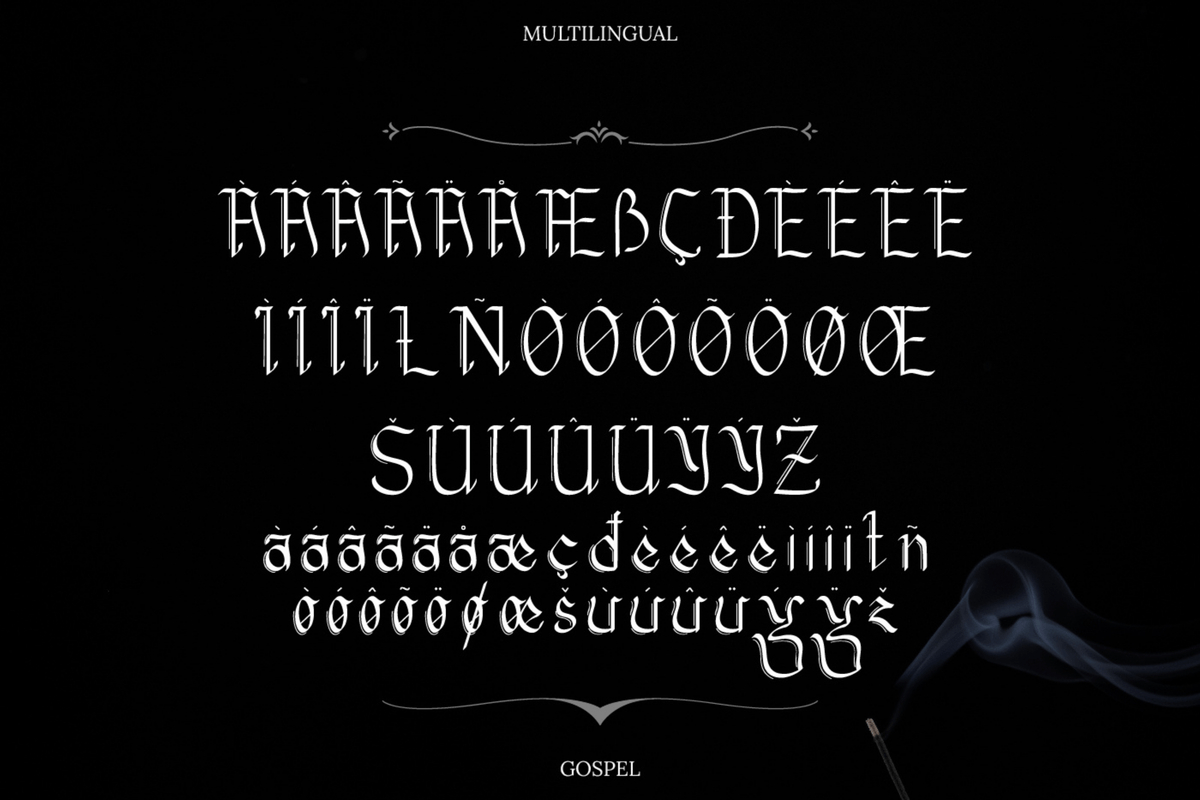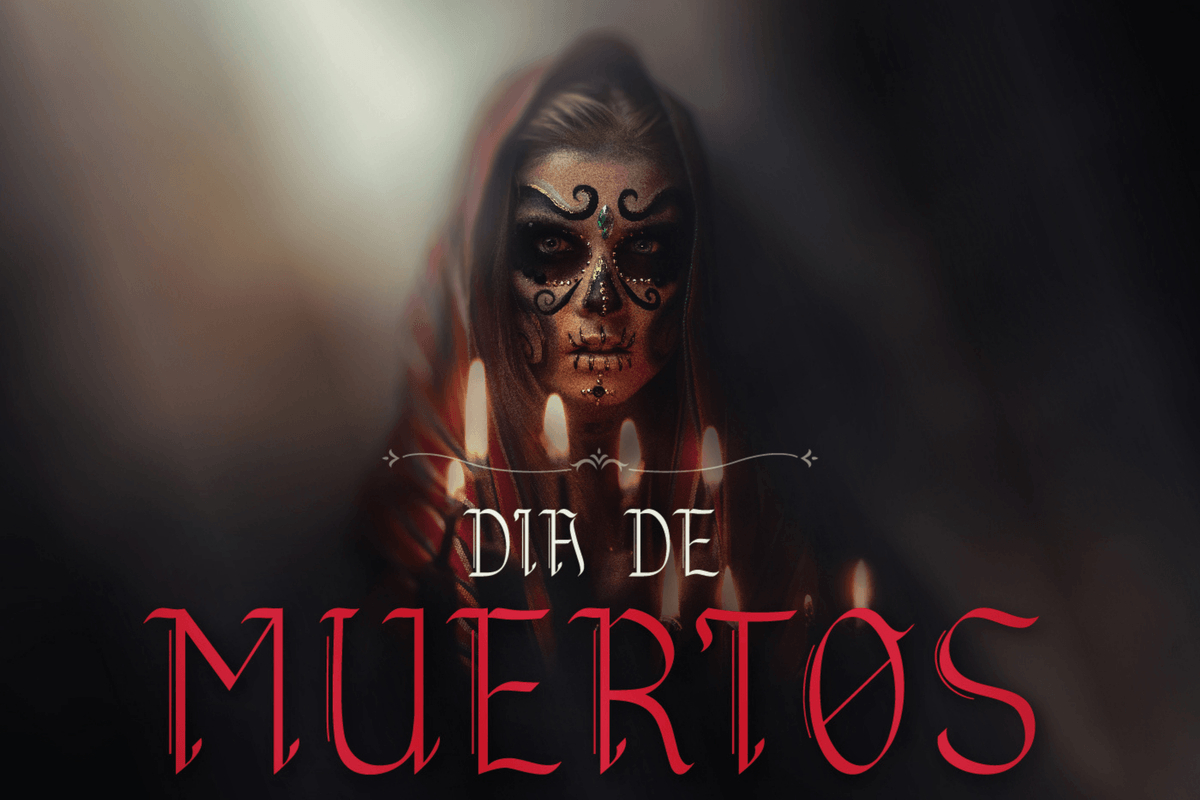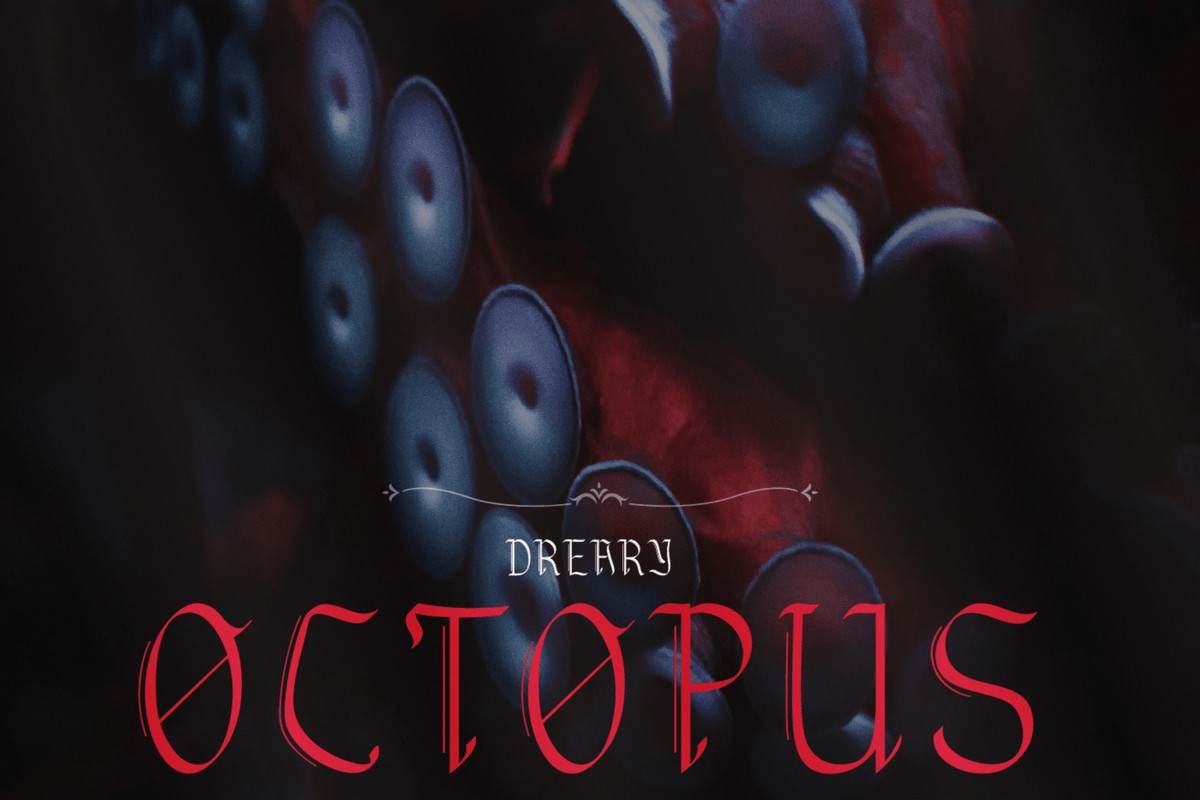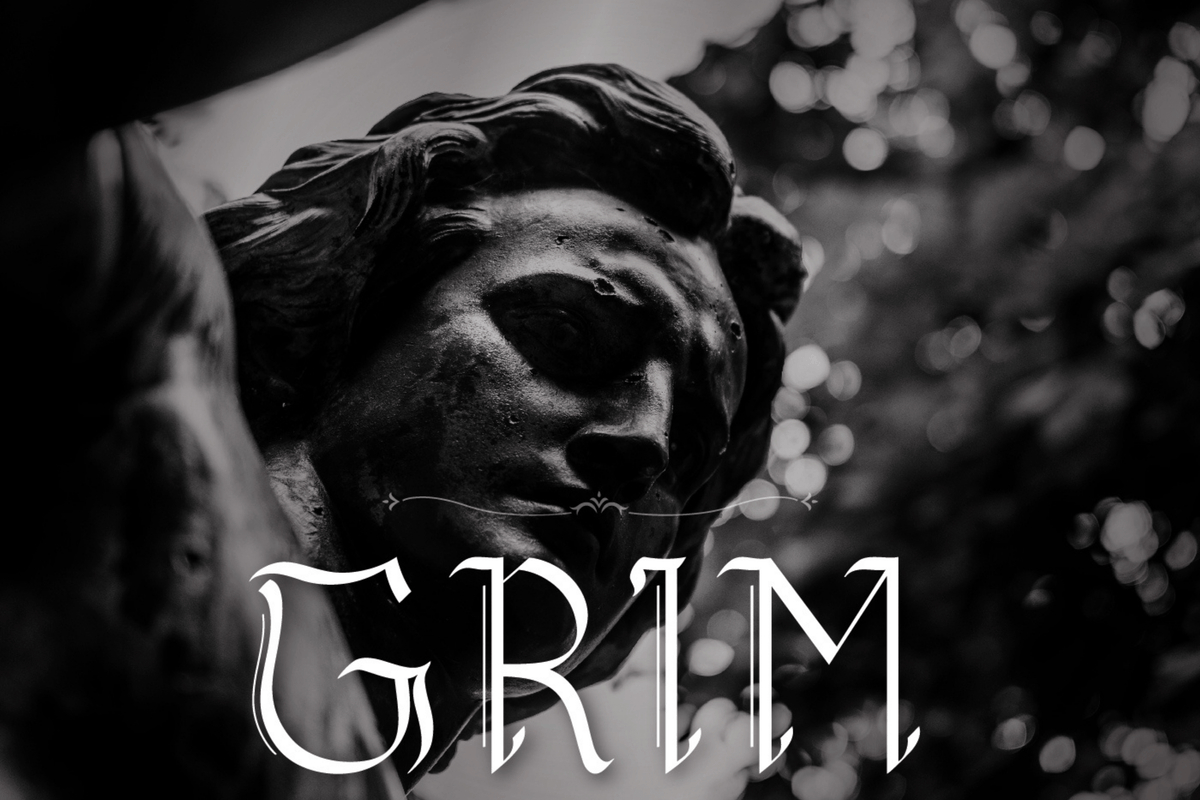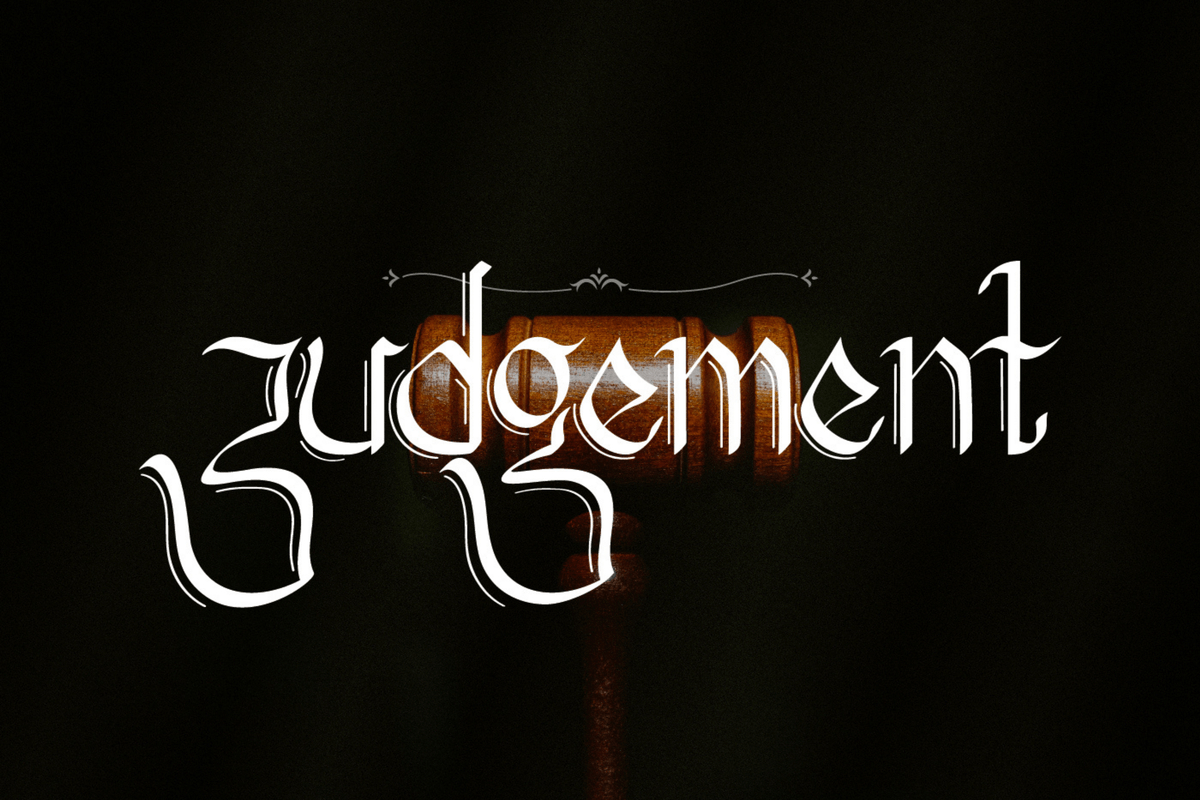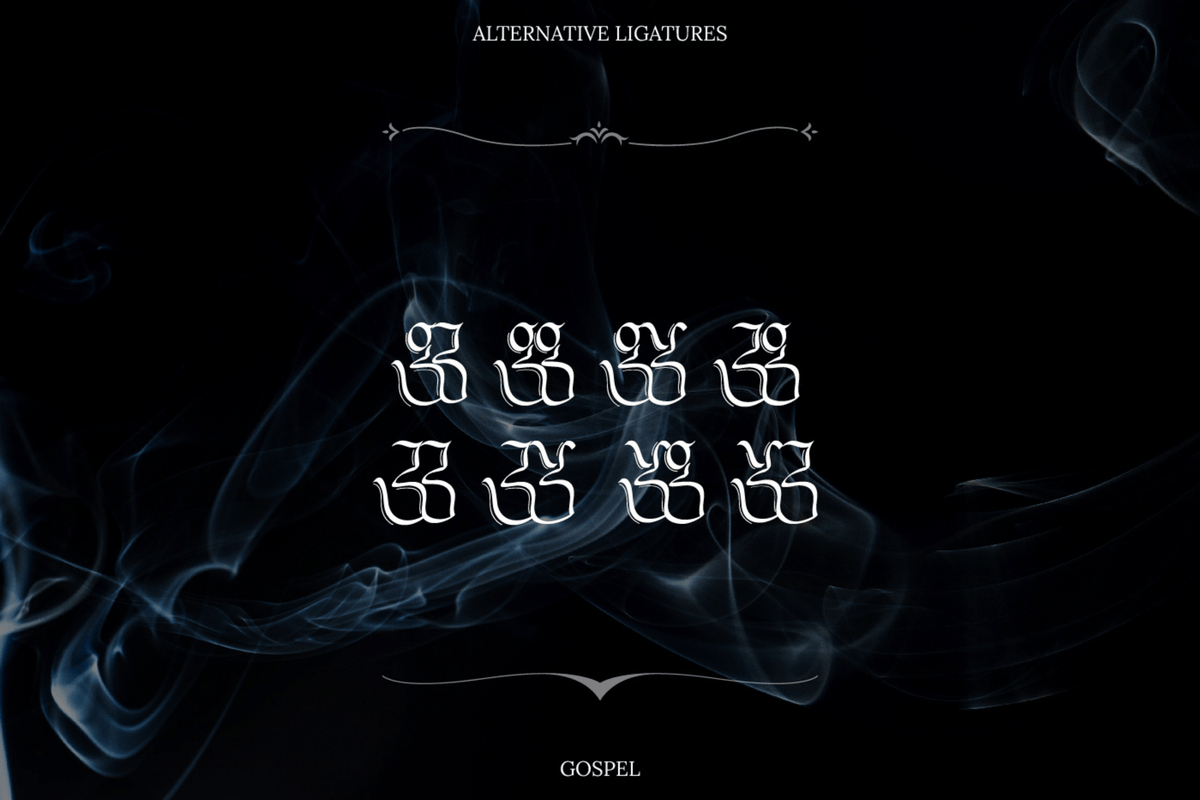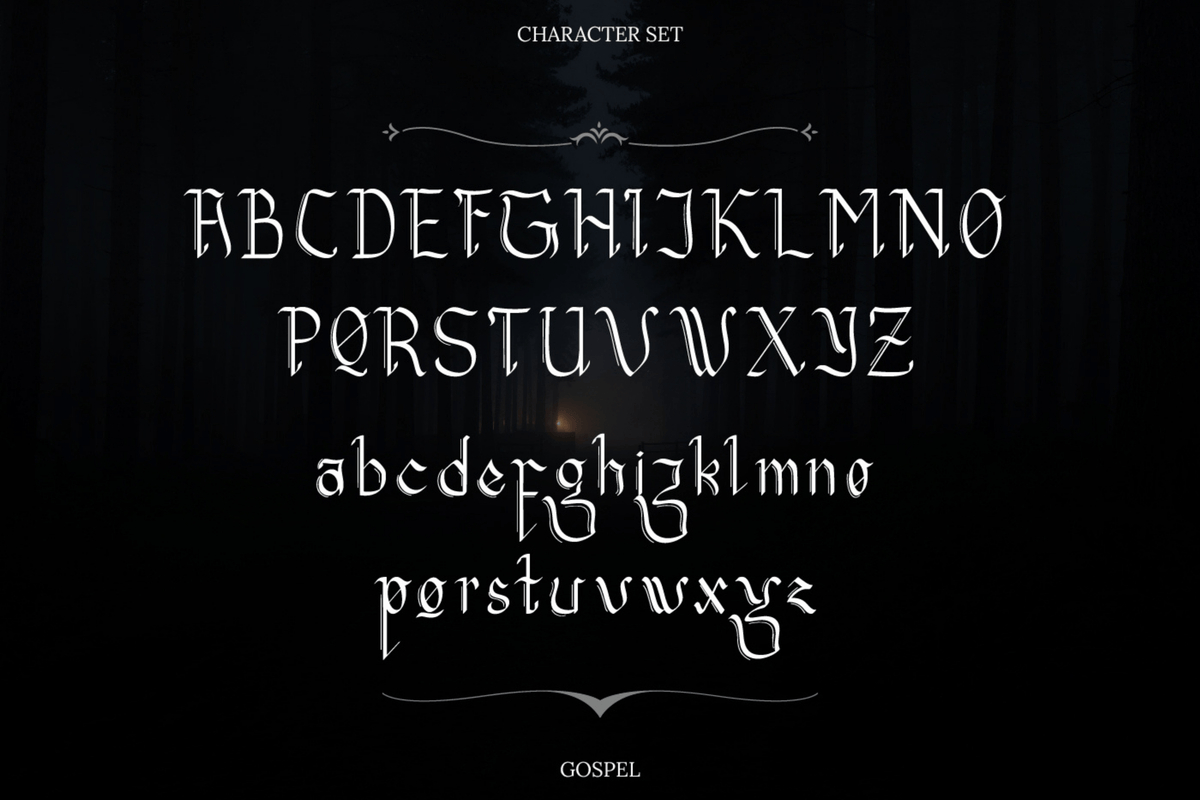
About Gospel Font
Gospel Gothic Calligraphy
Gospel is an adaptation to a Blackletter or Gothic font that uses unique lines and details. It was inspired by some types of old western calligraphy which is usually used in books, letters, murals, and others. Gospel has lines on its side that make it seem stronger and more dimensional. It brings scary, vintage, strong, and mysterious vibes, and it is an appropriate use for a logo, fashion project, lettering, decoration on art (especially surrealism), etc. Gospel’s name was inspired by the one word of Europe’s slogan: “Gold, Glory, Gospel” when they tried to conquer the world.